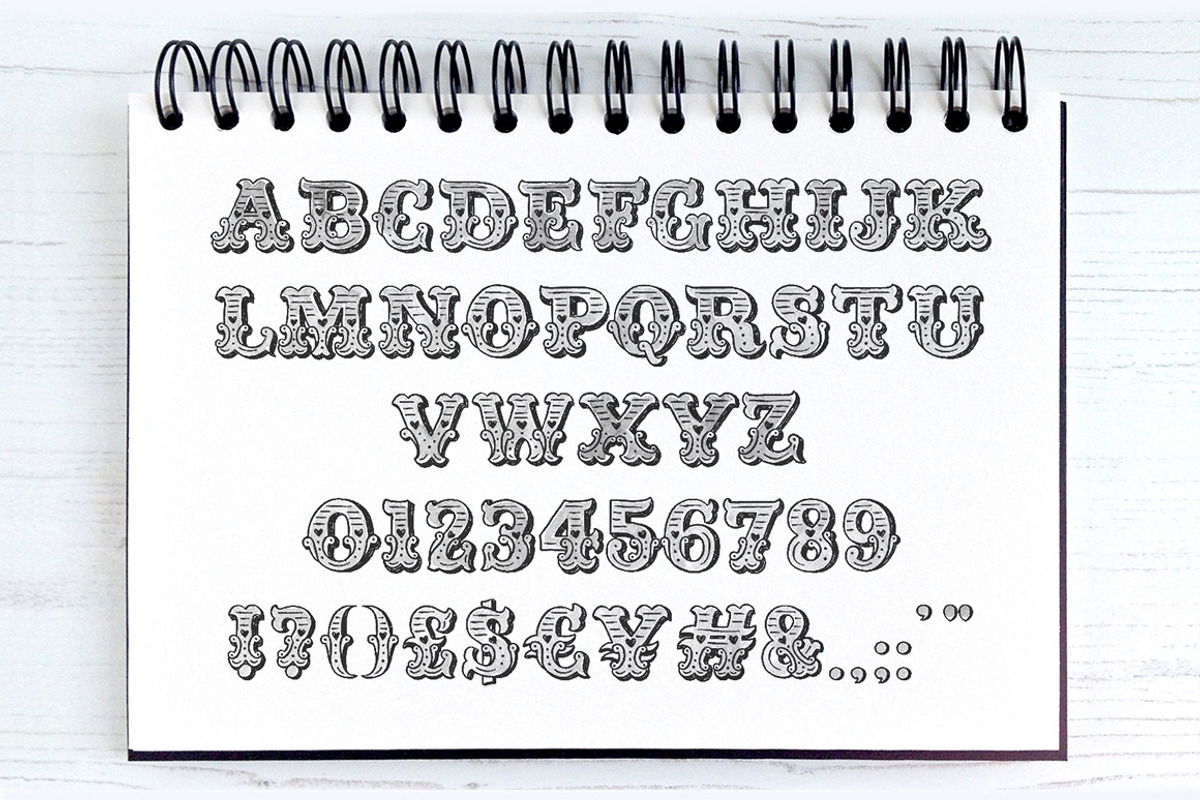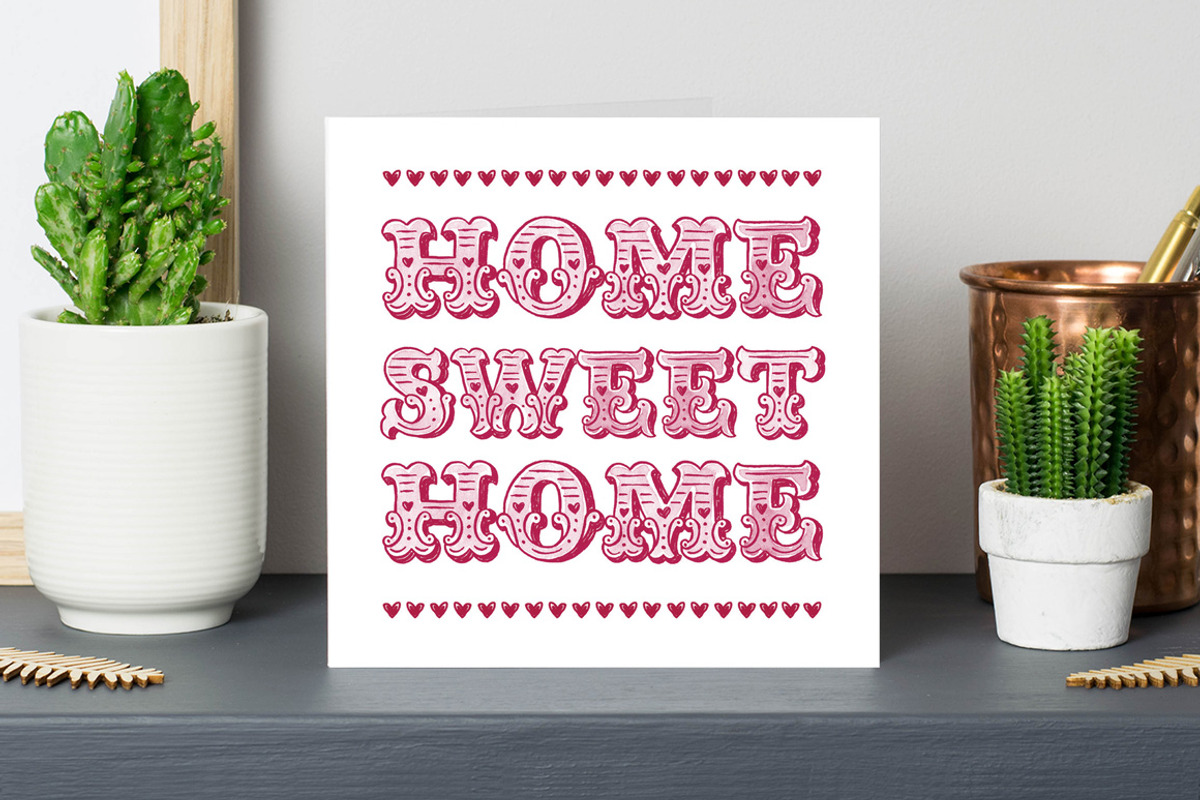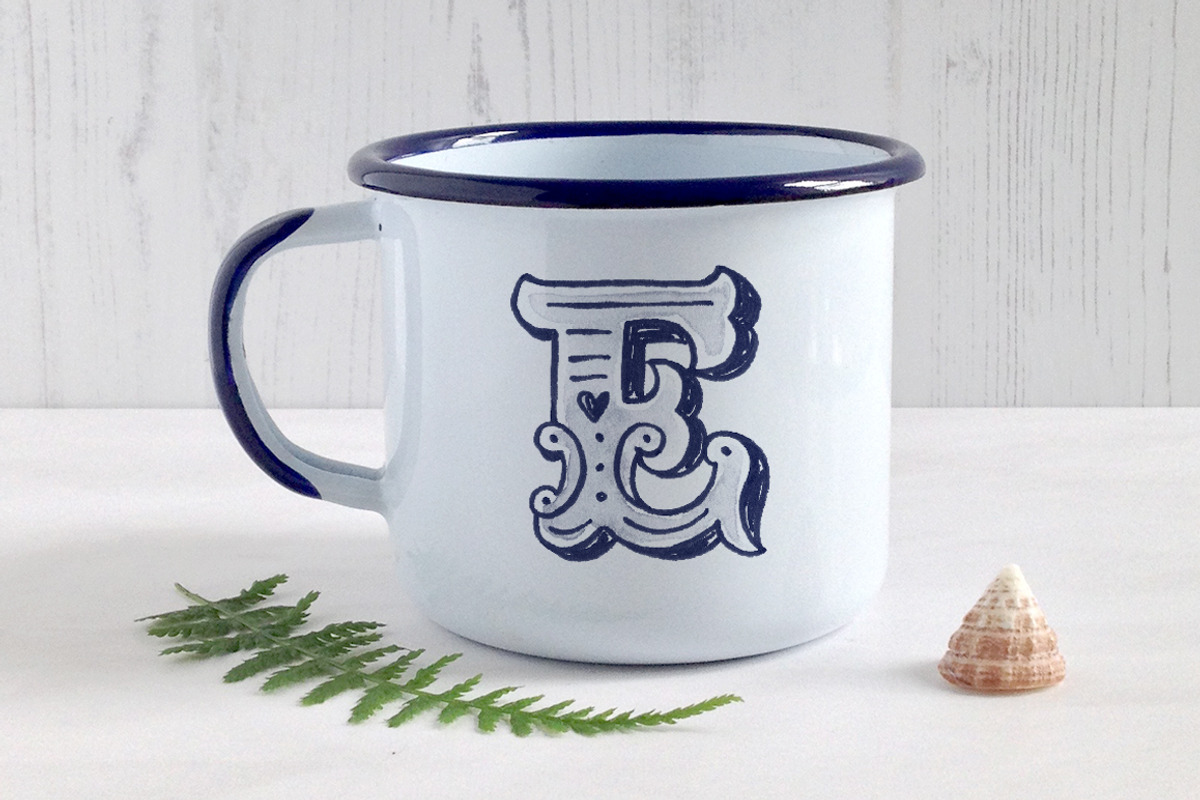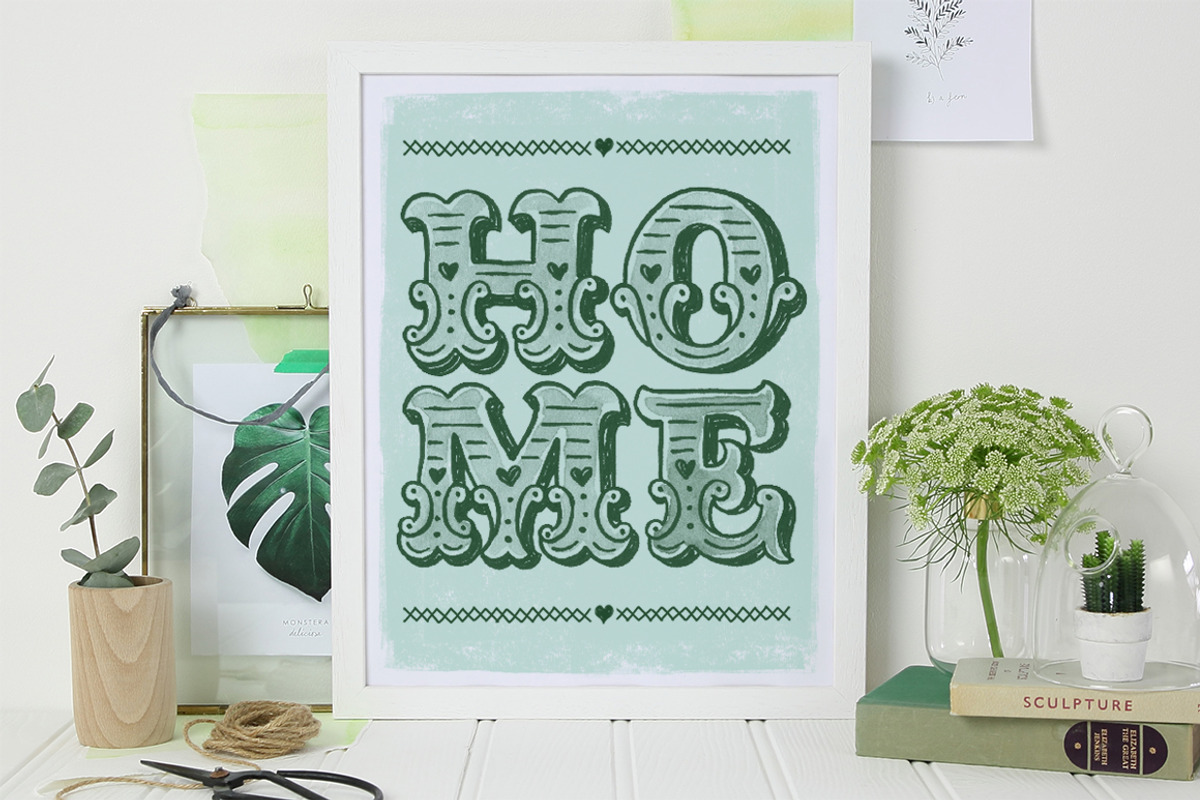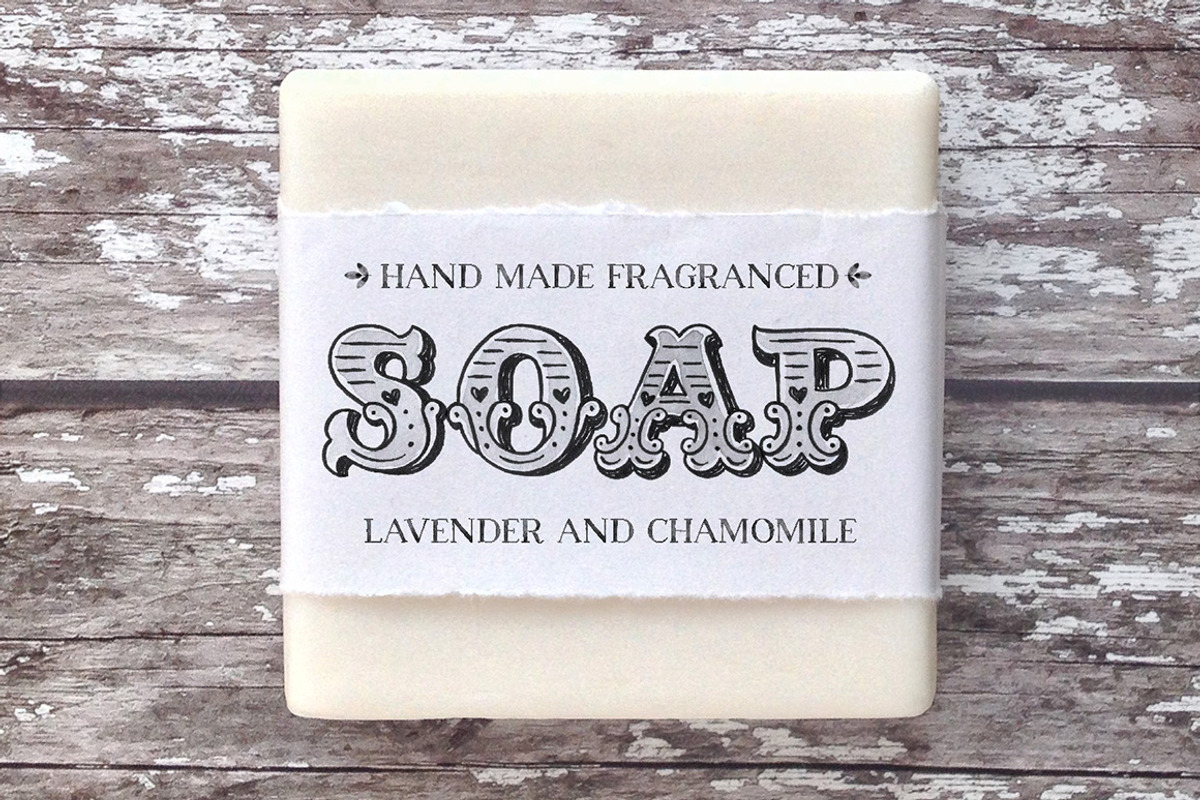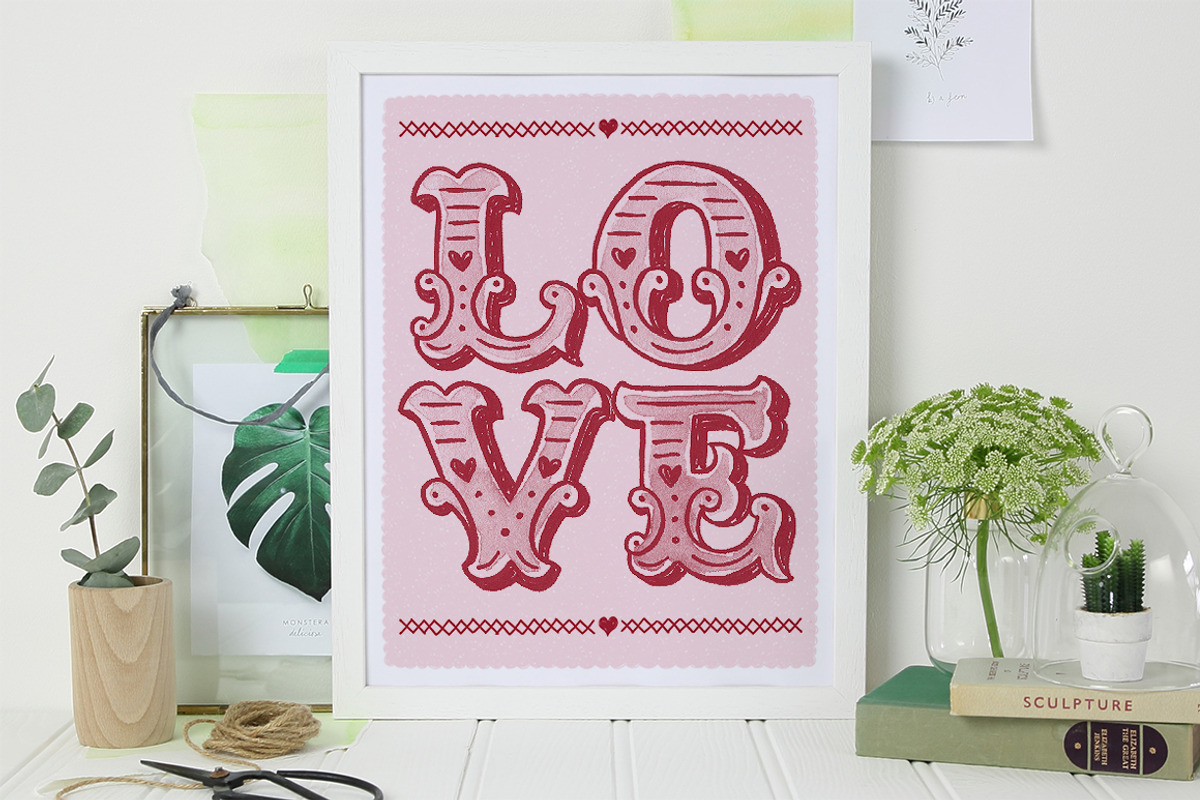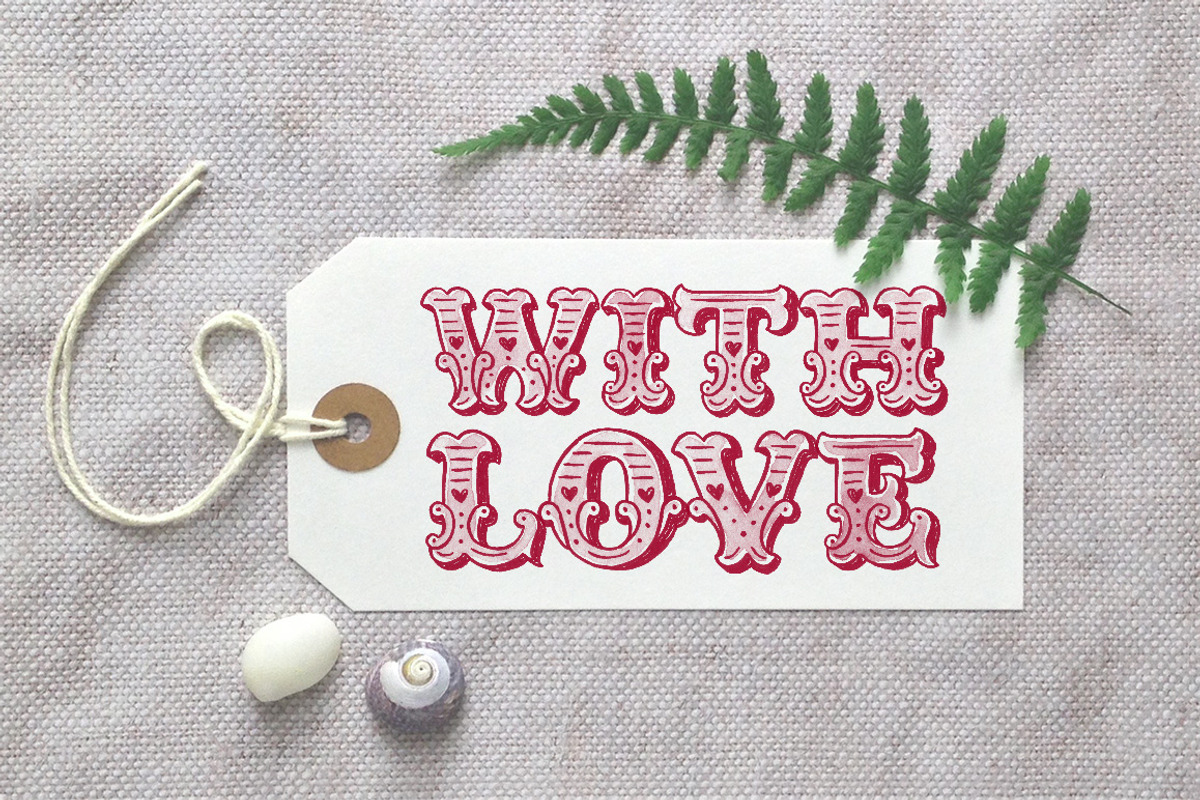
Uncle Bill Watercolour Display Font
A fun and quirky hand lettered watercolour font, ideal for logos, posters, packaging, stationery and much more!
Featuring individually hand painted characters, suitable for high resolution print.